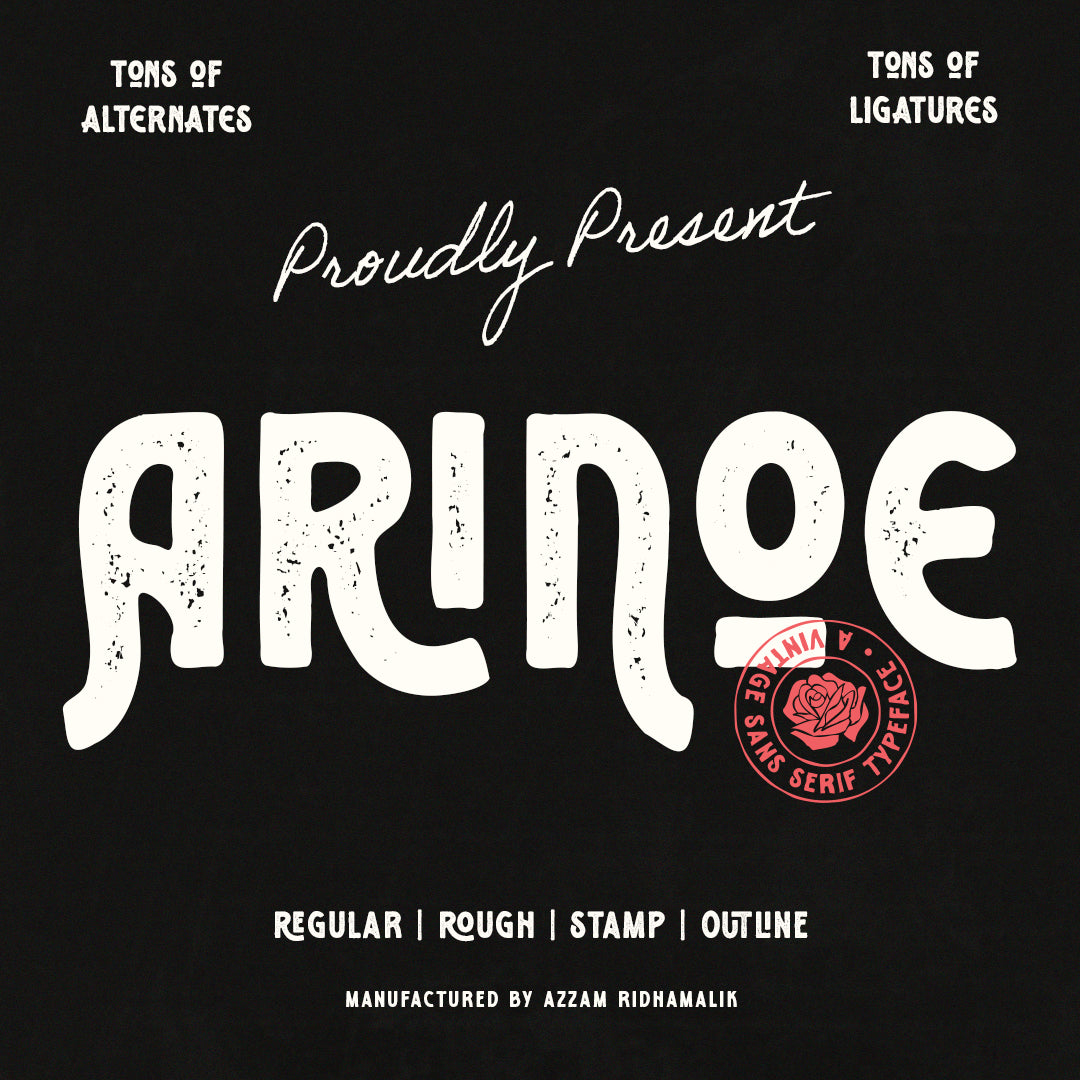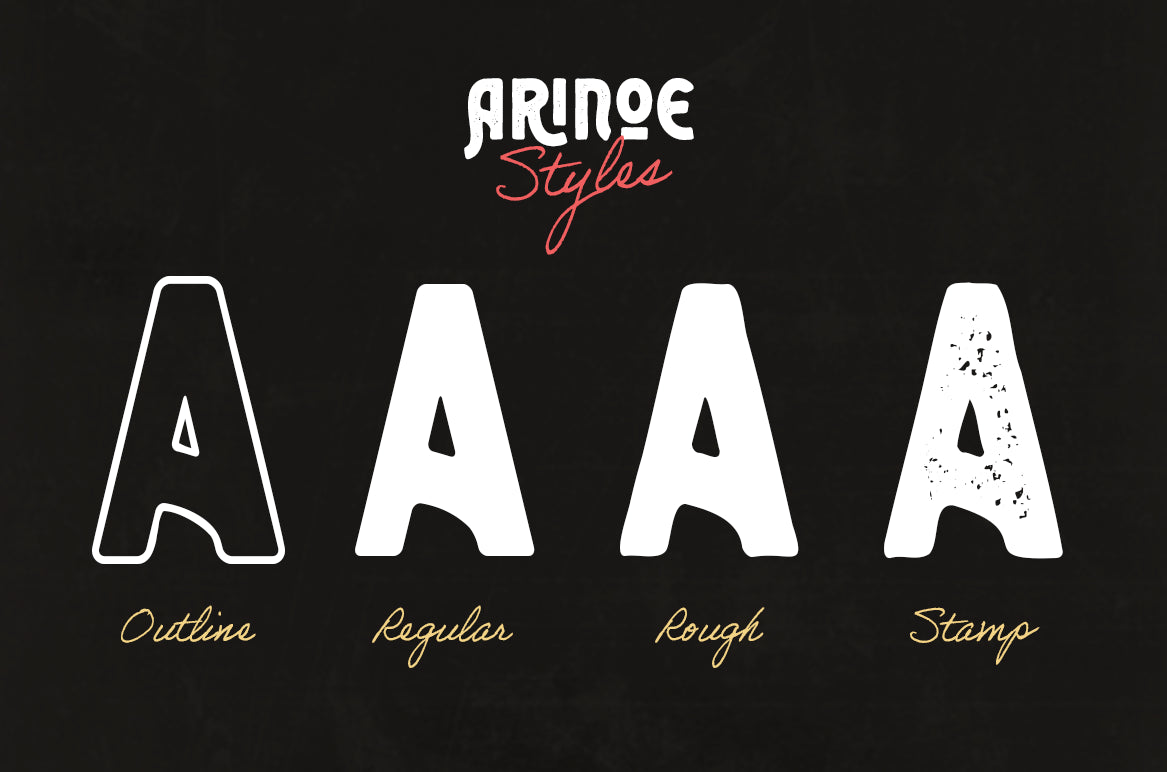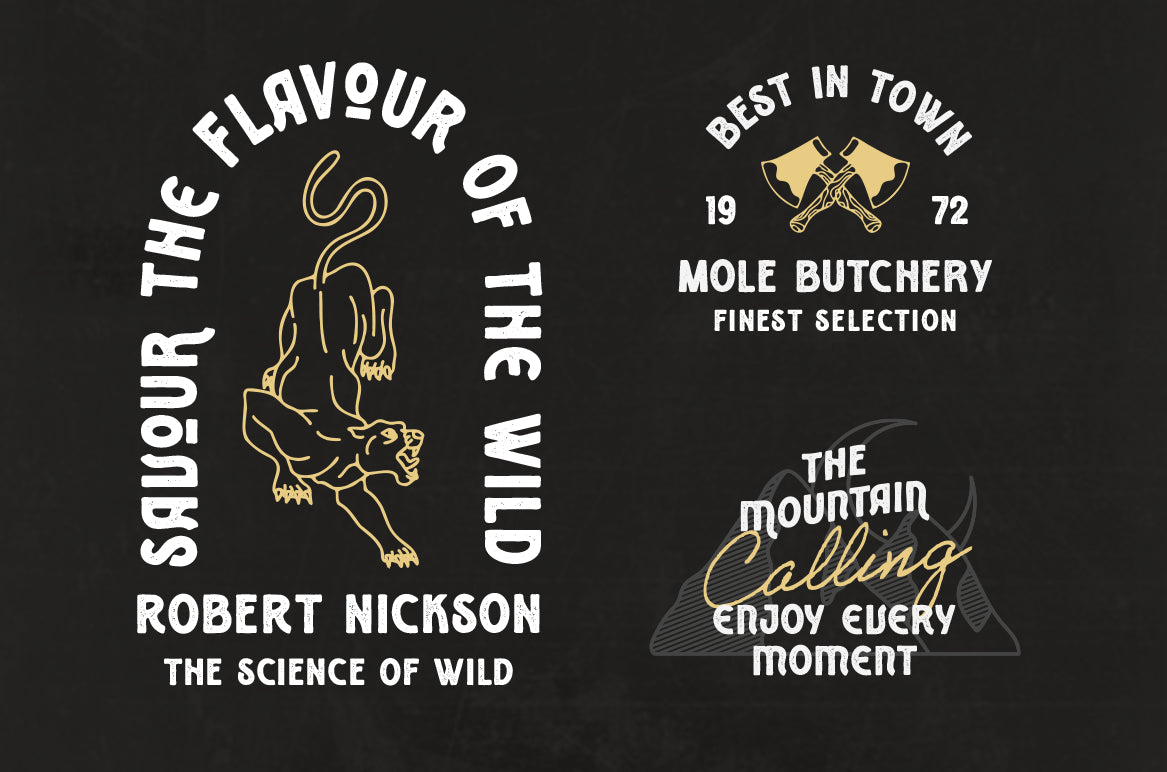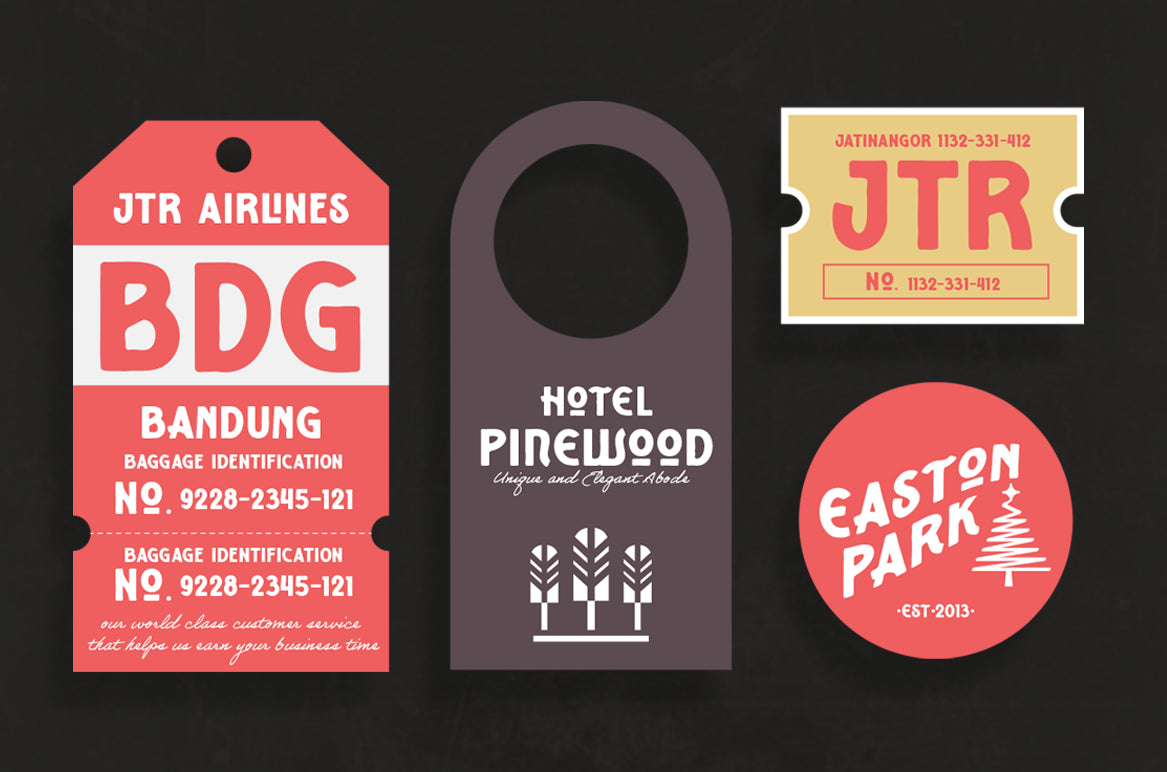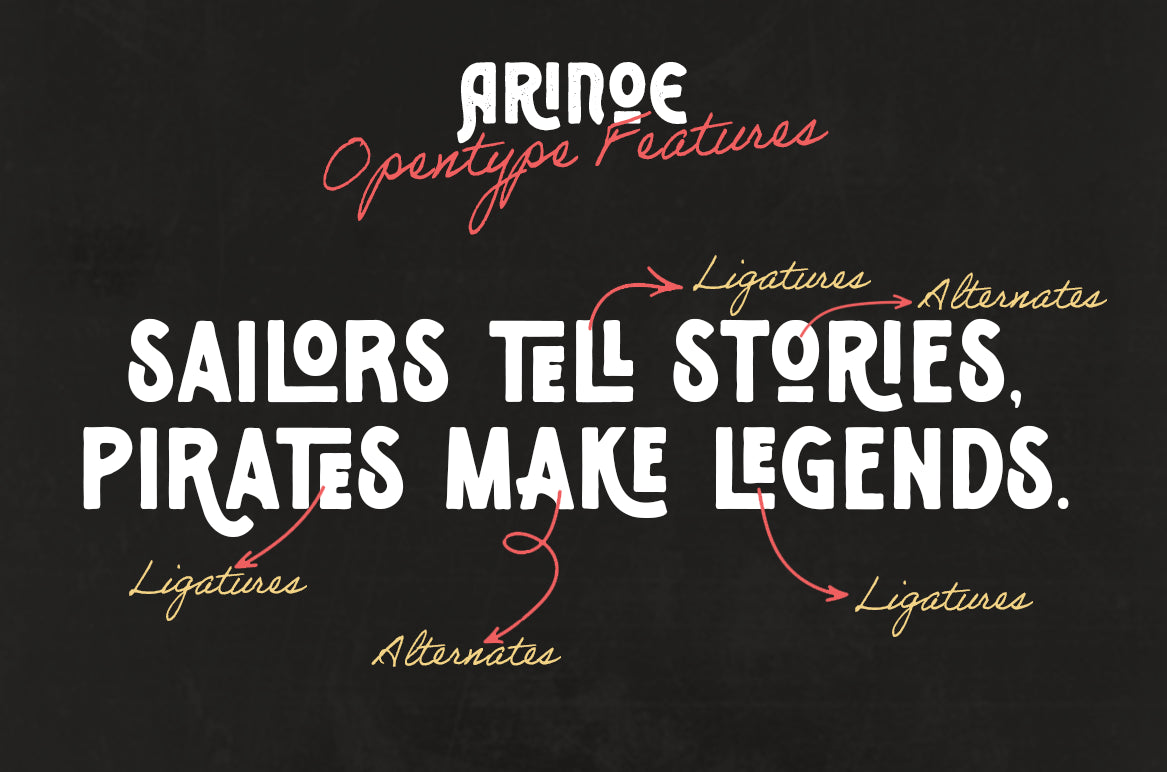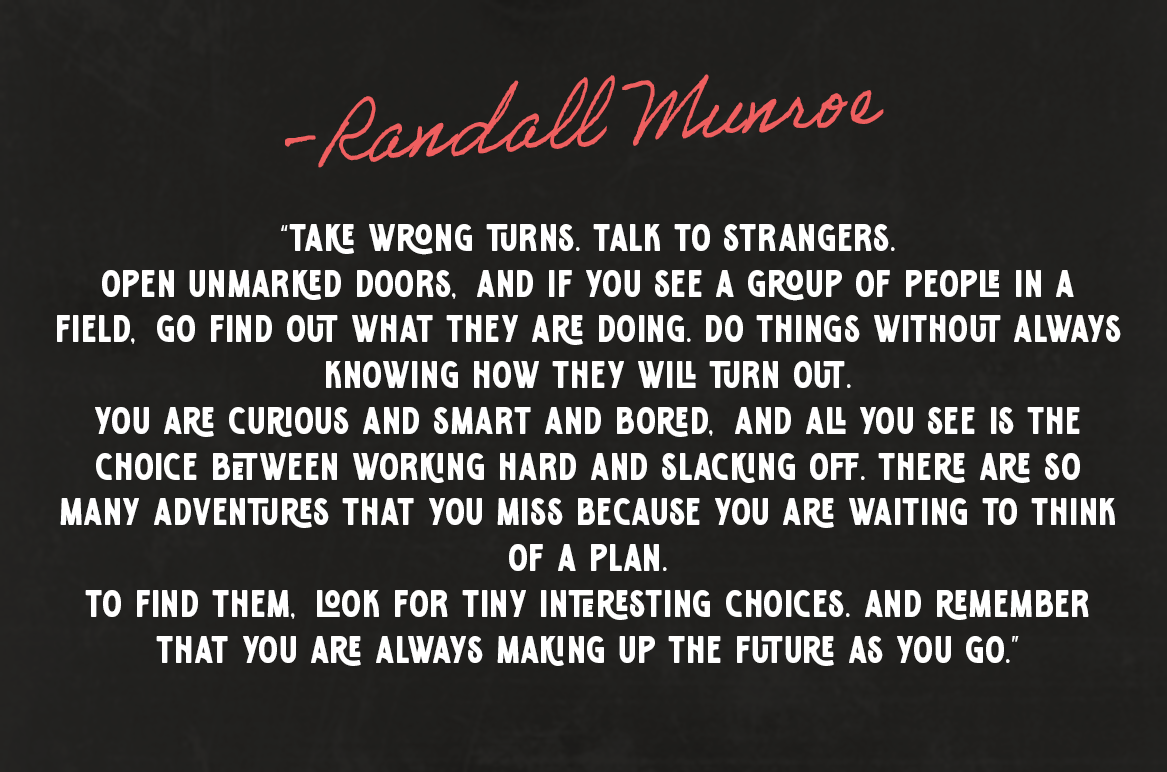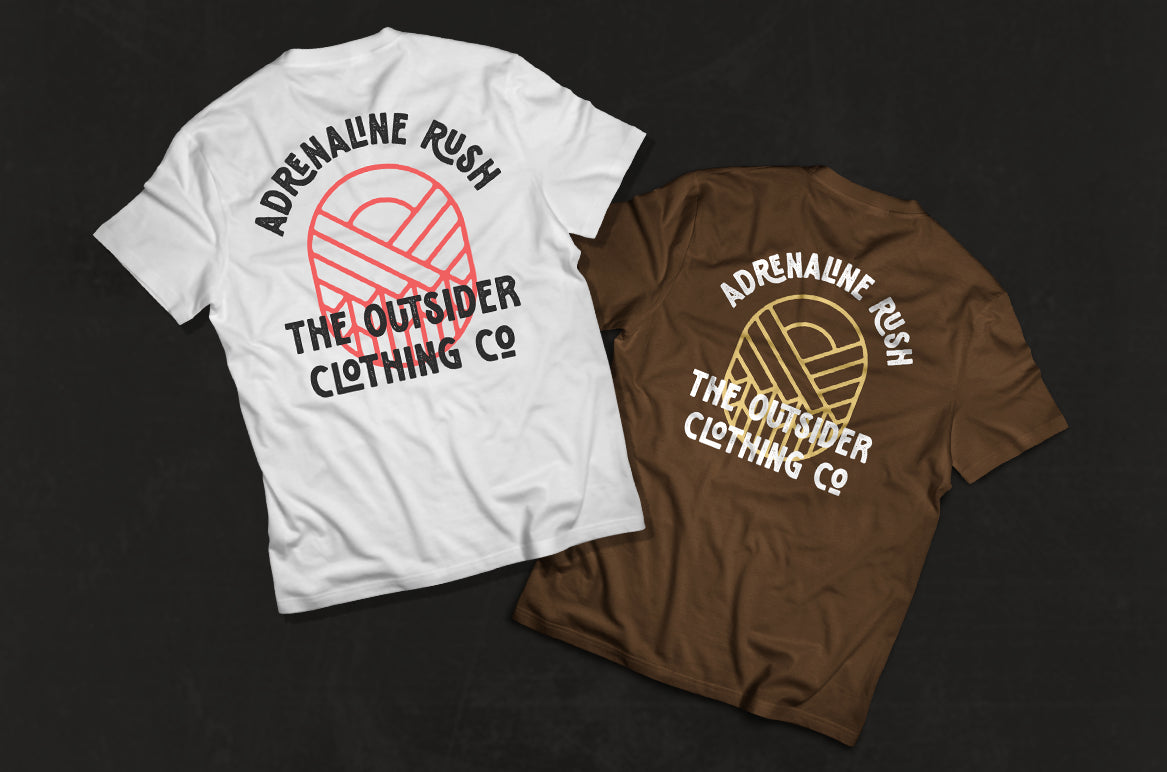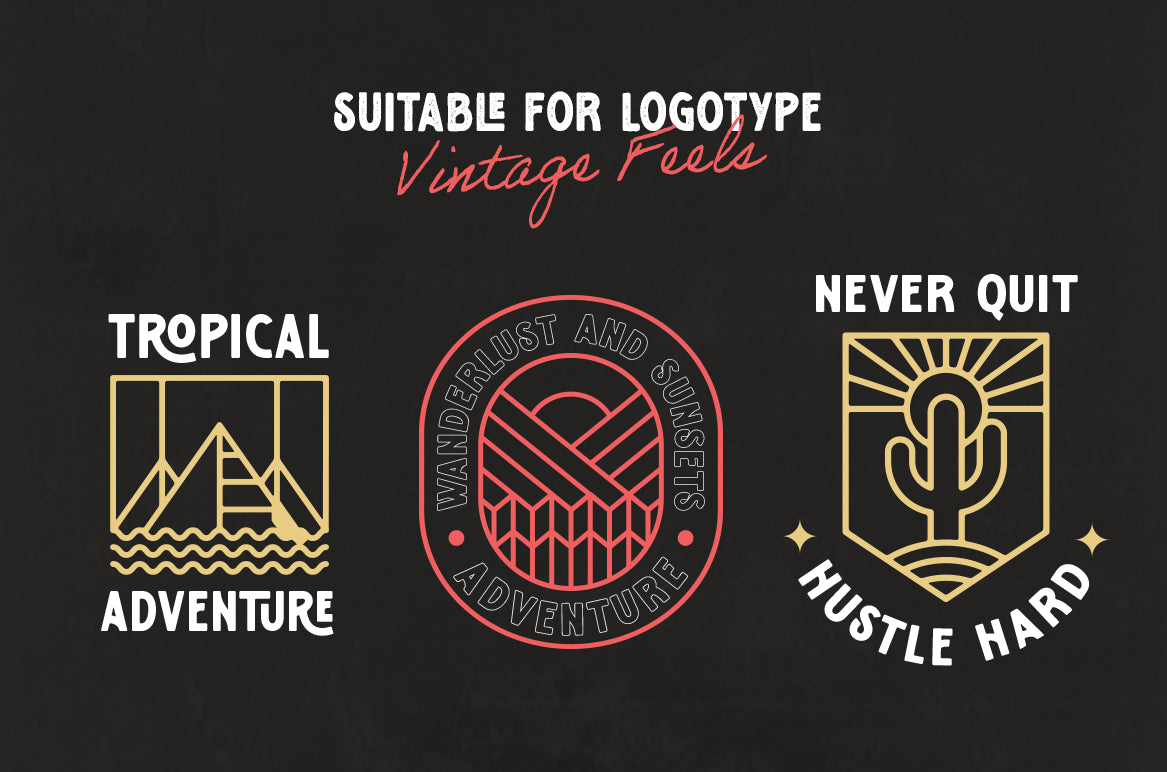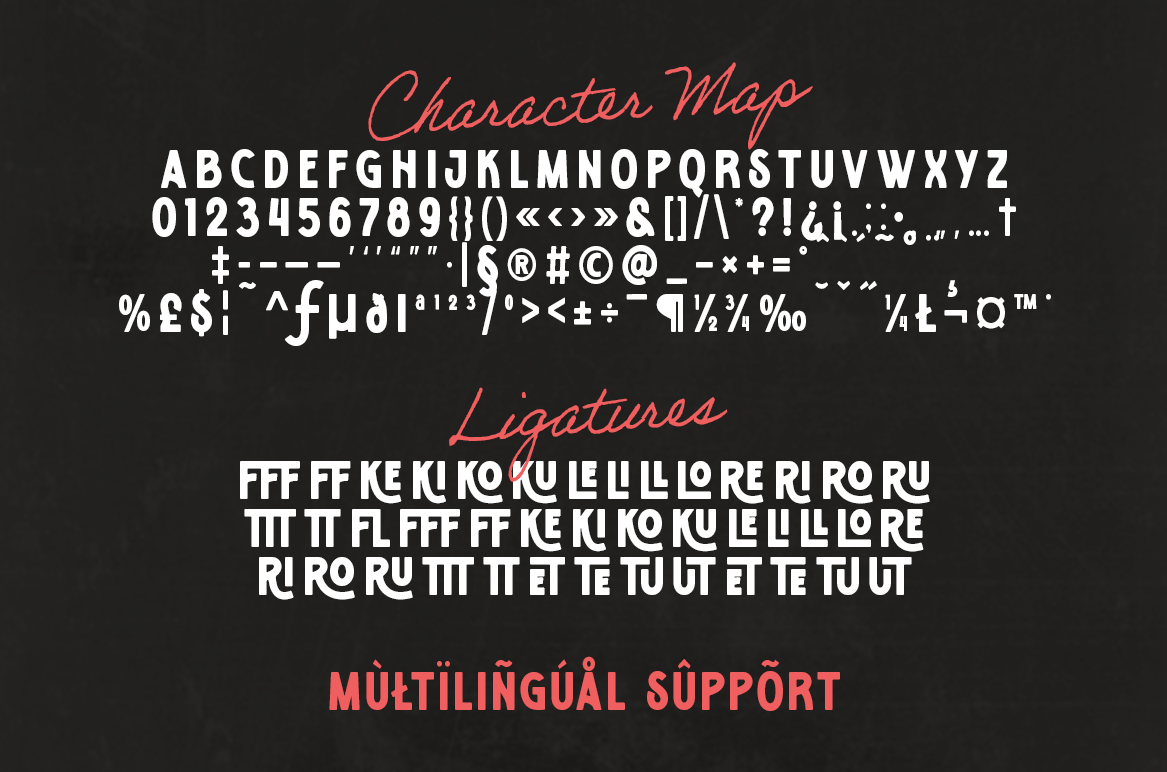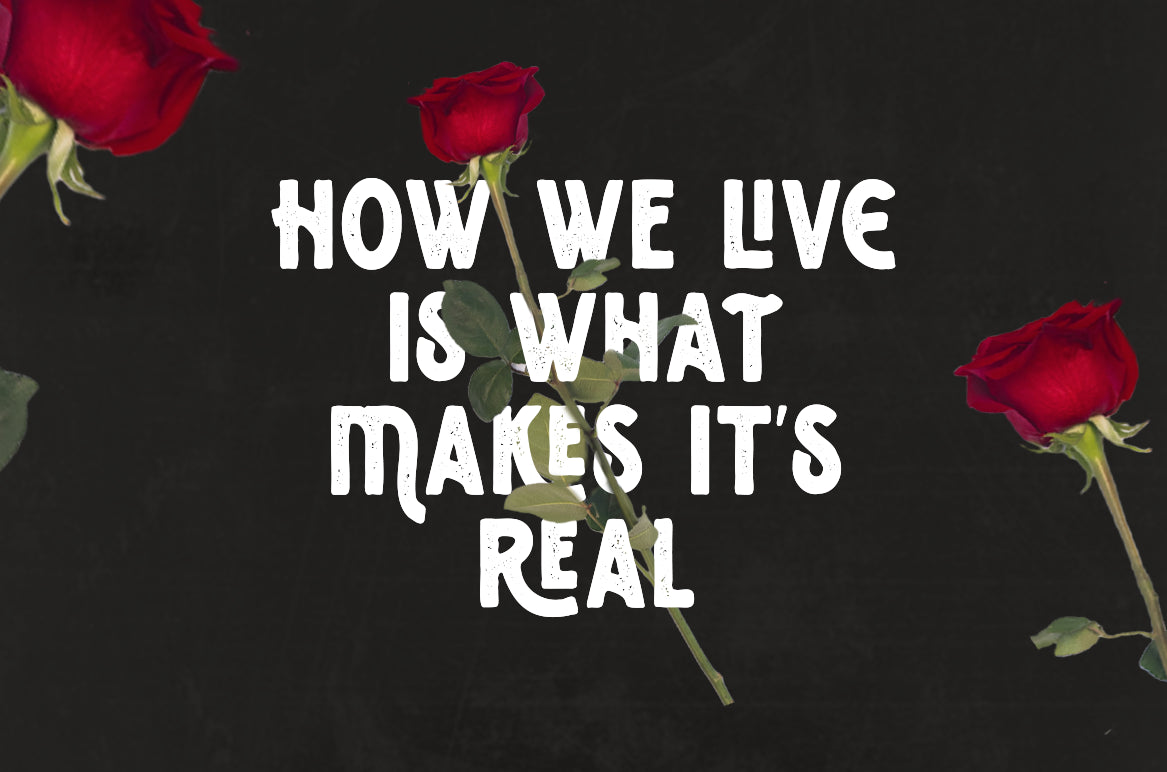
Arinoe - Vintage Font
Meet Arinoe — the vintage display font with a character all its own.
Arinoe is a bold, chunky all-caps display typeface with a hand-crafted vintage personality that sets it apart from generic retro fonts. Its letterforms feel organic and expressive — slightly uneven, full of warmth — the kind of type that looks like it was painted by hand on a wooden sign or pressed onto old packaging. Whether you're designing for craft brands, music merchandise, artisanal products, or vintage-inspired editorial, Arinoe brings a sense of authenticity that's hard to fake.
What makes Arinoe work so well?
Four distinct styles give you full control over tone and texture. Regular lays the clean foundation. Rough adds natural grain and surface imperfection for that worn, weathered look. Stamp mimics the uneven ink pressure of letterpress printing. And Outline opens up a lighter, more graphic dimension — perfect for layering or contrast work. Together, they make Arinoe one of the most versatile vintage display fonts you can add to your library.
Packed with thoughtful details:
Tons of stylistic alternates and ligatures mean no two compositions have to look the same — you can keep swapping characters until every headline feels like it was drawn just for that project. Multilingual support keeps your options open for international work, and with all four web formats included across every style, Arinoe is ready for print, screen, and web without extra conversion.
— 4 Styles: Regular, Rough, Stamp, Outline
— Tons of Ligatures & Stylistic Alternates
— Multilingual Support
Arinoe is a vintage display font featuring a bold, chunky all-caps design with four distinct styles: Regular, Rough, Stamp, and Outline. It includes a variety of stylistic alternates and ligatures, multilingual support, and is provided in multiple formats (OTF, TTF, WOFF, WOFF2) for compatibility with both PC and Mac.